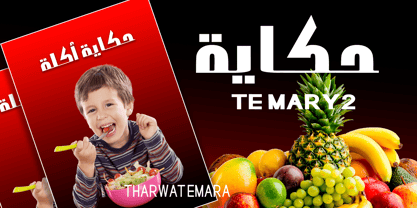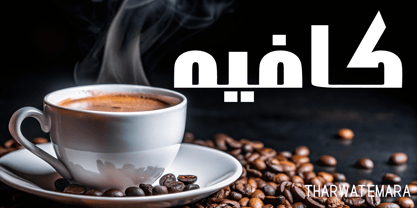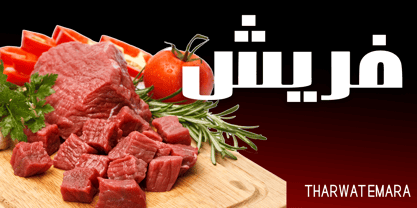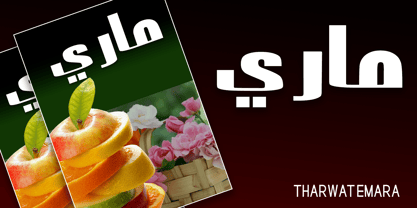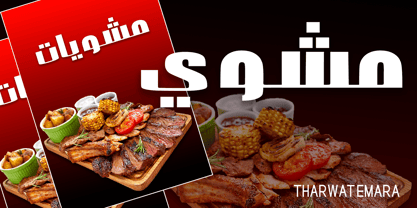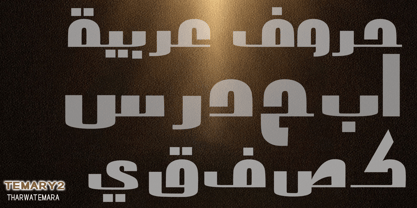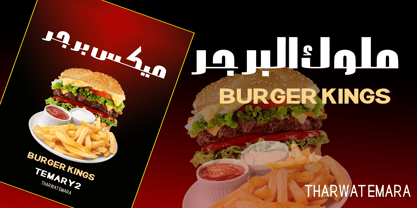
TE Mary2
by Tharwat Emara
The TE Mary2 Font Family was designed by Tharwat Mohamed Emara and published by Tharwat Emara. TE Mary2 contains 1 styles. More about this family
TE MARY 2 is an elegant and expressive typeface that infuses a refined, feminine character into modern typography. With its graceful letterforms, distinctive details, and balanced visual rhythm, TE MARY 2 leaves a sophisticated yet approachable impression. This stylish font is an excellent choice for a variety of applications, including branding, logos, editorial designs, invitations, packaging, fashion projects, beauty brands, social media graphics, and premium visual identities. TE MARY 2 is crafted for projects that require a touch of elegance, personality, and contemporary charm while ensuring strong visual presence and readability. Ideal for: Branding • Logos • Fashion • Beauty • Packaging • Invitations • Editorial Design • Social Media • Luxury & Lifestyle Projects
Designers: Tharwat Mohamed Emara
Foundry: Tharwat Emara
About Tharwat Emara
Tharwat Emara is an esteemed Egyptian calligrapher, renowned for his exceptional work in the field of Arabic calligraphy. He is recognized for his unique style and his ability to seamlessly blend tradition with innovation, resulting in a body of work that is both timeless and contemporary.Born in Egypt, Tharwat Emara developed a passion for calligraphy at a young age. He honed his skills through years of dedicated practice and study, eventually becoming one of the most prominent calligraphers in the country. His work has been exhibited around the world, and his fonts have been used in a variety of media, including books, advertisements, and logos.What sets Tharwat Emara apart from other calligraphers is his ability to create fonts that are both beautiful and functional. He understands that calligraphy is not just an art form, but a means of communication, and his fonts reflect this understanding. They are clear, legible, and easy to read, while also retaining the aesthetic beauty that is so important to the art of calligraphy.Tharwat Emara's fonts are also notable for their versatility. He has created fonts that are suitable for a wide range of applications, from elegant wedding invitations to bold, modern advertising campaigns. Whether you're looking for a font that is classic and timeless or something that is cutting-edge and contemporary, Tharwat Emara has a font that will suit your needs. One of the things that makes Tharwat Emara's fonts so special is the attention to detail that he puts into every design. He understands that each letter is a work of art in itself, and he approaches each design with the same level of care and precision that he would if he were creating a standalone piece of calligraphy. This attention to detail ensures that each font is not only beautiful, but also functional and easy to use. In addition to his work as a calligrapher, Tharwat Emara is also an accomplished teacher. He has taught calligraphy to students around the world, and his workshops are highly sought-after by both beginners and experienced calligraphers. His approach to teaching is based on his belief that calligraphy is a discipline that requires patience, dedication, and a willingness to learn from both success and failure. He encourages his students to explore their creativity and to find their own unique style, while also providing them with the technical skills they need to create beautiful calligraphy.If you're looking for a calligrapher who combines tradition with innovation, who creates fonts that are both beautiful and functional, and who approaches his work with the utmost care and precision, then Tharwat Emara is the perfect choice. His fonts are among the most distinctive and recognizable in the world of Arabic calligraphy, and they are sure to add a touch of elegance and sophistication to any project.